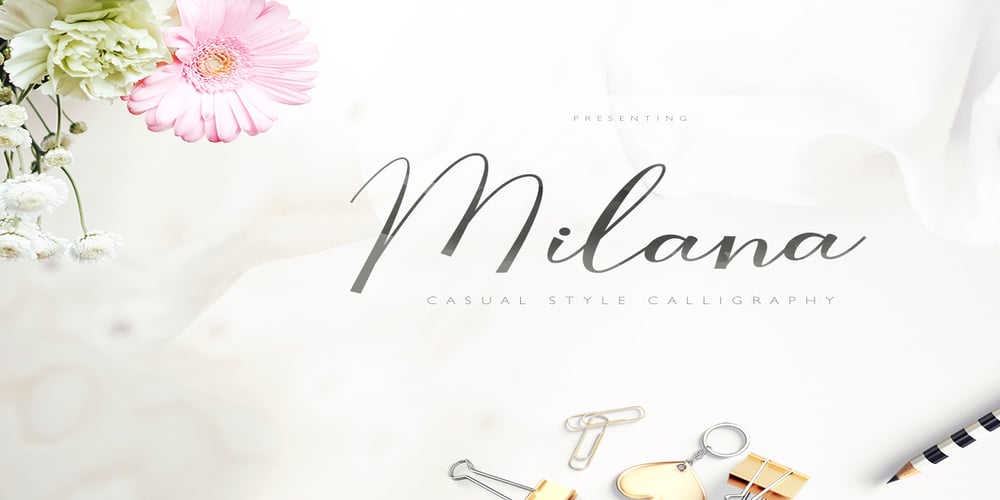
Milana Font Family was designed by khaidir and published by Gatype. Milana contains 1 styles and family package options. Milana Script is sweet calligraphy font. This font is casual and pretty with swashes. Can used for various purposes such as logos, product packaging, wedding invitations, branding, headlines, signage, labels, signatures, book covers, posters, quotes and more.Milana Script features OpenType stylistic alternates, ligatures and International support for most Western Languages. To enable the OpenType Stylistic alternates, you need a program that supports OpenType features such as Adobe Illustrator CS, Adobe Indesign & CorelDraw X6-X7, Microsoft Word 2010 or later versions.Milana Script is coded with PUA Unicode, which allows full access to all the extra characters without having special designing software. Mac users can use Font Book, and Windows users can use Character Map to view and copy any of the extra characters to paste into your favorite text editor/app.If you need help or have any questions, please let me know. I’m happy to help. Thanks & Happy Designing!